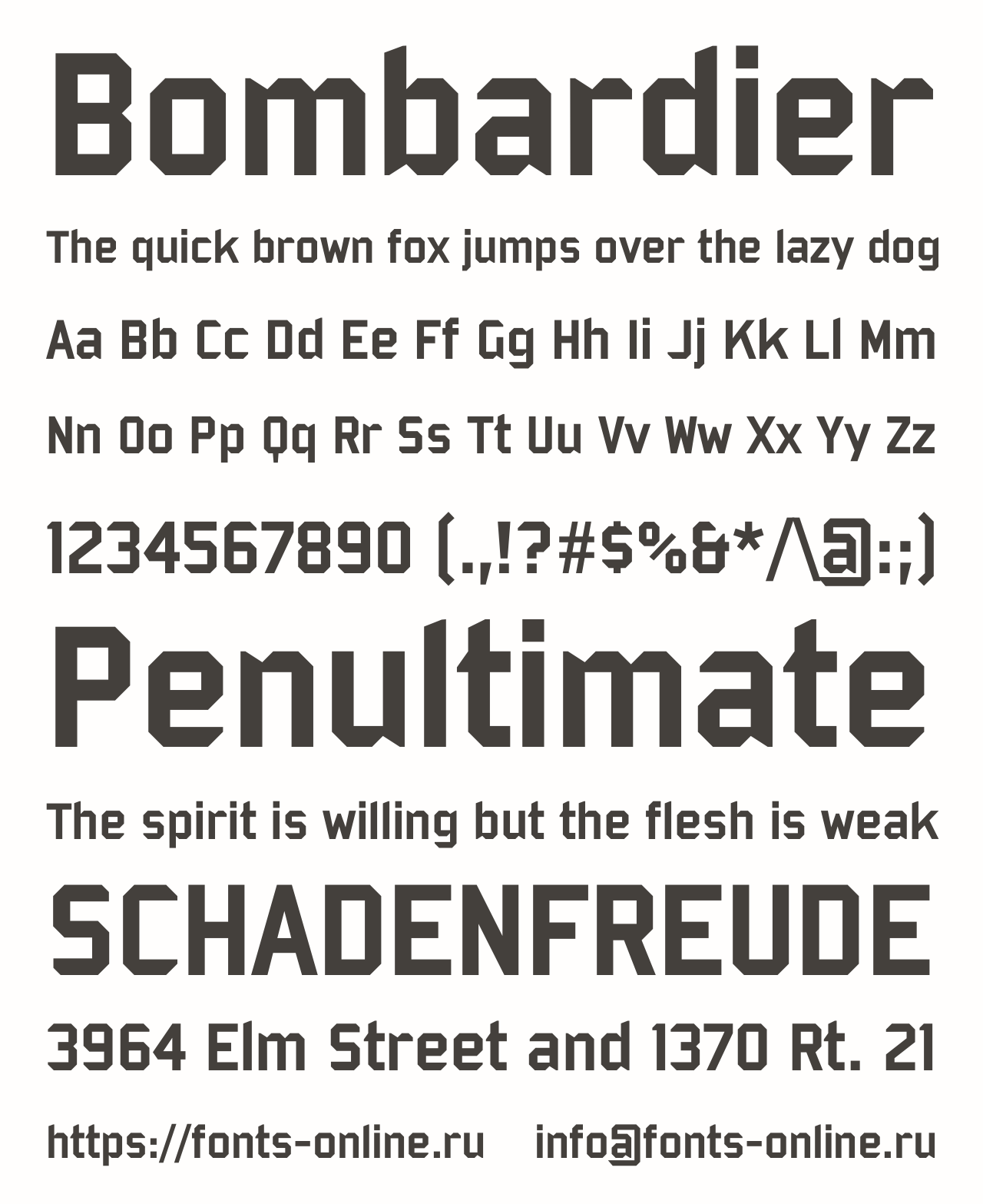
Bombardier Font . Bombardier à € by apostrophic labs. Download bombardier font · free for commercial use ·. Bombardier display font is a unique typeface perfect for headlines, big text, branding, logotypes & display usage. It is a sharp display. Download and install the bombardier font by apostrophic labs. Click here and download the bombardier font · window, mac, linux · last updated 2024 · commercial licence included Bombardier is a sharp display font inspired by the game risk of rain 2 and extended with cyrillic symbols. The bombardier font has been downloaded 26,240 times. Bombardier display font is a unique typeface perfect for headlines, big text, branding, logotypes & display usage. It is a sharp display font inspired by the game risk of rain 2 and. Bombardier features a blocky design and is perfect for projects relating to the tech industry, the gaming logo, posters and other artworks.
Download bombardier font · free for commercial use ·. The bombardier font has been downloaded 26,240 times. Bombardier display font is a unique typeface perfect for headlines, big text, branding, logotypes & display usage. Bombardier is a sharp display font inspired by the game risk of rain 2 and extended with cyrillic symbols. Bombardier display font is a unique typeface perfect for headlines, big text, branding, logotypes & display usage. Download and install the bombardier font by apostrophic labs. Bombardier à € by apostrophic labs. Bombardier features a blocky design and is perfect for projects relating to the tech industry, the gaming logo, posters and other artworks. It is a sharp display font inspired by the game risk of rain 2 and. Click here and download the bombardier font · window, mac, linux · last updated 2024 · commercial licence included
Bombardier Font Bombardier à € by apostrophic labs. Bombardier features a blocky design and is perfect for projects relating to the tech industry, the gaming logo, posters and other artworks. Download and install the bombardier font by apostrophic labs. It is a sharp display font inspired by the game risk of rain 2 and. The bombardier font has been downloaded 26,240 times. It is a sharp display. Bombardier is a sharp display font inspired by the game risk of rain 2 and extended with cyrillic symbols. Download bombardier font · free for commercial use ·. Bombardier à € by apostrophic labs. Bombardier display font is a unique typeface perfect for headlines, big text, branding, logotypes & display usage. Bombardier display font is a unique typeface perfect for headlines, big text, branding, logotypes & display usage. Click here and download the bombardier font · window, mac, linux · last updated 2024 · commercial licence included
Bombardier Font Free Download Bombardier Font Bombardier display font is a unique typeface perfect for headlines, big text, branding, logotypes & display usage. It is a sharp display. Bombardier à € by apostrophic labs. Bombardier display font is a unique typeface perfect for headlines, big text, branding, logotypes & display usage. Bombardier is a sharp display font inspired by the game risk of rain 2 and. Bombardier Font.
Bombardier Font Download Free Bombardier Font The bombardier font has been downloaded 26,240 times. Bombardier display font is a unique typeface perfect for headlines, big text, branding, logotypes & display usage. Download and install the bombardier font by apostrophic labs. Download bombardier font · free for commercial use ·. Bombardier display font is a unique typeface perfect for headlines, big text, branding, logotypes & display usage.. Bombardier Font.
Bombardier free Font What Font Is Bombardier Font Click here and download the bombardier font · window, mac, linux · last updated 2024 · commercial licence included It is a sharp display font inspired by the game risk of rain 2 and. It is a sharp display. Bombardier features a blocky design and is perfect for projects relating to the tech industry, the gaming logo, posters and other. Bombardier Font.
Download free Bombardier font, free BOMBARD_.ttf Regular font for Windows Bombardier Font It is a sharp display font inspired by the game risk of rain 2 and. Bombardier features a blocky design and is perfect for projects relating to the tech industry, the gaming logo, posters and other artworks. It is a sharp display. The bombardier font has been downloaded 26,240 times. Download and install the bombardier font by apostrophic labs. Download. Bombardier Font.
Bombardier Font · 1001 Fonts Bombardier Font It is a sharp display font inspired by the game risk of rain 2 and. Download and install the bombardier font by apostrophic labs. Bombardier display font is a unique typeface perfect for headlines, big text, branding, logotypes & display usage. Bombardier à € by apostrophic labs. The bombardier font has been downloaded 26,240 times. Download bombardier font · free. Bombardier Font.
Bombardier Font Free Download Bombardier Font Bombardier display font is a unique typeface perfect for headlines, big text, branding, logotypes & display usage. The bombardier font has been downloaded 26,240 times. Click here and download the bombardier font · window, mac, linux · last updated 2024 · commercial licence included Download bombardier font · free for commercial use ·. Download and install the bombardier font by. Bombardier Font.
Bombardier font Bombardier Font Download bombardier font · free for commercial use ·. Bombardier features a blocky design and is perfect for projects relating to the tech industry, the gaming logo, posters and other artworks. Download and install the bombardier font by apostrophic labs. Bombardier is a sharp display font inspired by the game risk of rain 2 and extended with cyrillic symbols. Bombardier. Bombardier Font.
bombardierfreefont01 Fonts Shmonts Bombardier Font Download bombardier font · free for commercial use ·. It is a sharp display. Bombardier is a sharp display font inspired by the game risk of rain 2 and extended with cyrillic symbols. Bombardier à € by apostrophic labs. Bombardier features a blocky design and is perfect for projects relating to the tech industry, the gaming logo, posters and other. Bombardier Font.
Bombardier free Font What Font Is Bombardier Font Bombardier display font is a unique typeface perfect for headlines, big text, branding, logotypes & display usage. Bombardier à € by apostrophic labs. Download bombardier font · free for commercial use ·. Bombardier features a blocky design and is perfect for projects relating to the tech industry, the gaming logo, posters and other artworks. It is a sharp display. Bombardier. Bombardier Font.